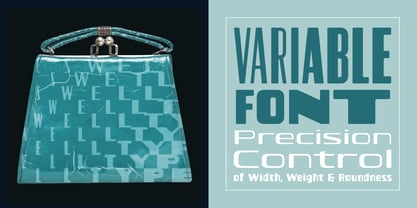
Silver Streak
by Swell Type
The Silver Streak Font Family was designed by John Roshell and published by Swell Type. Silver Streak contains 51 styles and family package options. More about this family
Inspired by the streamlined lettering of trains, cars and advertisements from the 1930s and 1940s, Silver Streak is a font family that combines Art Deco elegance with refined craftsmanship and modern features.
Silver Streak's contrasting strokes and tastefully rounded corners conjure an era of refined, vintage elegance. An extravagant palette of 25 weights — from gracefully tall and thin to commandingly wide and heavy, along with a variable font for unlimited options between — provide unforgettable branding possibilities for luxury items ranging from jewelry, clothing and perfume to the sleek badges of high performance sports cars.
Features: Alternate hook-cornered capitals and Alternate round-topped A in two versions, all with international accents.